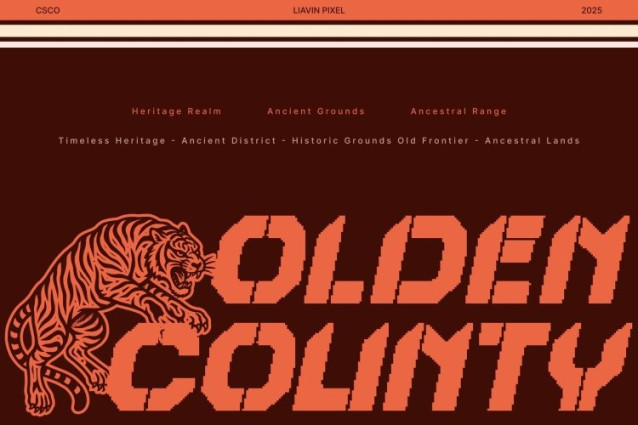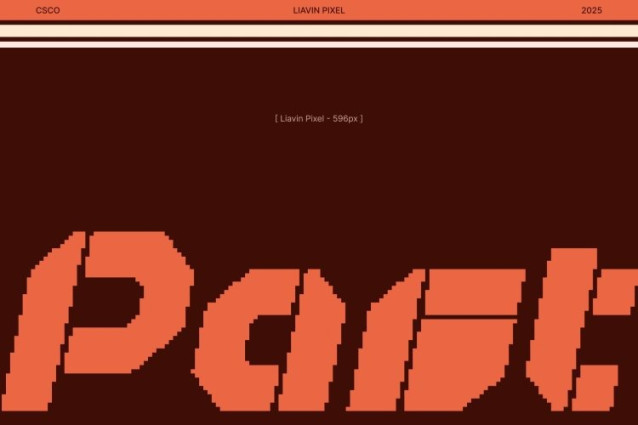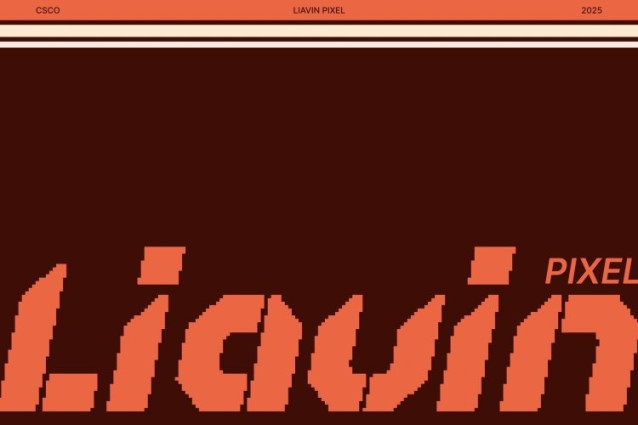
Liavin Pixel Font
Liavin Pixel Font This is a futuristic sci-fi display font crafted with sharp angular geometry that instantly evokes the feeling of distant galaxies and advanced civilizations. Its striking shapes deliver a powerful, extraterrestrial presence, making it an excellent choice for space-themed movies, video game titles, or book covers that demand a bold, interstellar aesthetic.
Pixel Texture for a Modern Digital Identity
Enhanced with a distinctive pixel style, this font combines futuristic elegance with retro-digital charm. The pixel detailing adds depth, personality, and a high-tech vibe, giving your design a unique digital identity perfect for modern branding and creative digital projects.
Strong, Clear, and Designed for Impact
Despite its edgy angles, Liavin Pixel maintains strong readability and clear form, ensuring every title and headline appears sharp and commanding. The geometric structure gives it a sleek and confident visual flow, ideal for layouts that require precision and dynamic energy.
Perfect for Sci-Fi Titles, Games, and Digital Branding
From cinematic sci-fi posters to immersive game UIs and futuristic book covers, this font elevates your work with a blend of modern design and cosmic imagination. The pixel influence makes it especially powerful in digital branding, giving projects a trendy, high-tech, and visually unforgettable style.